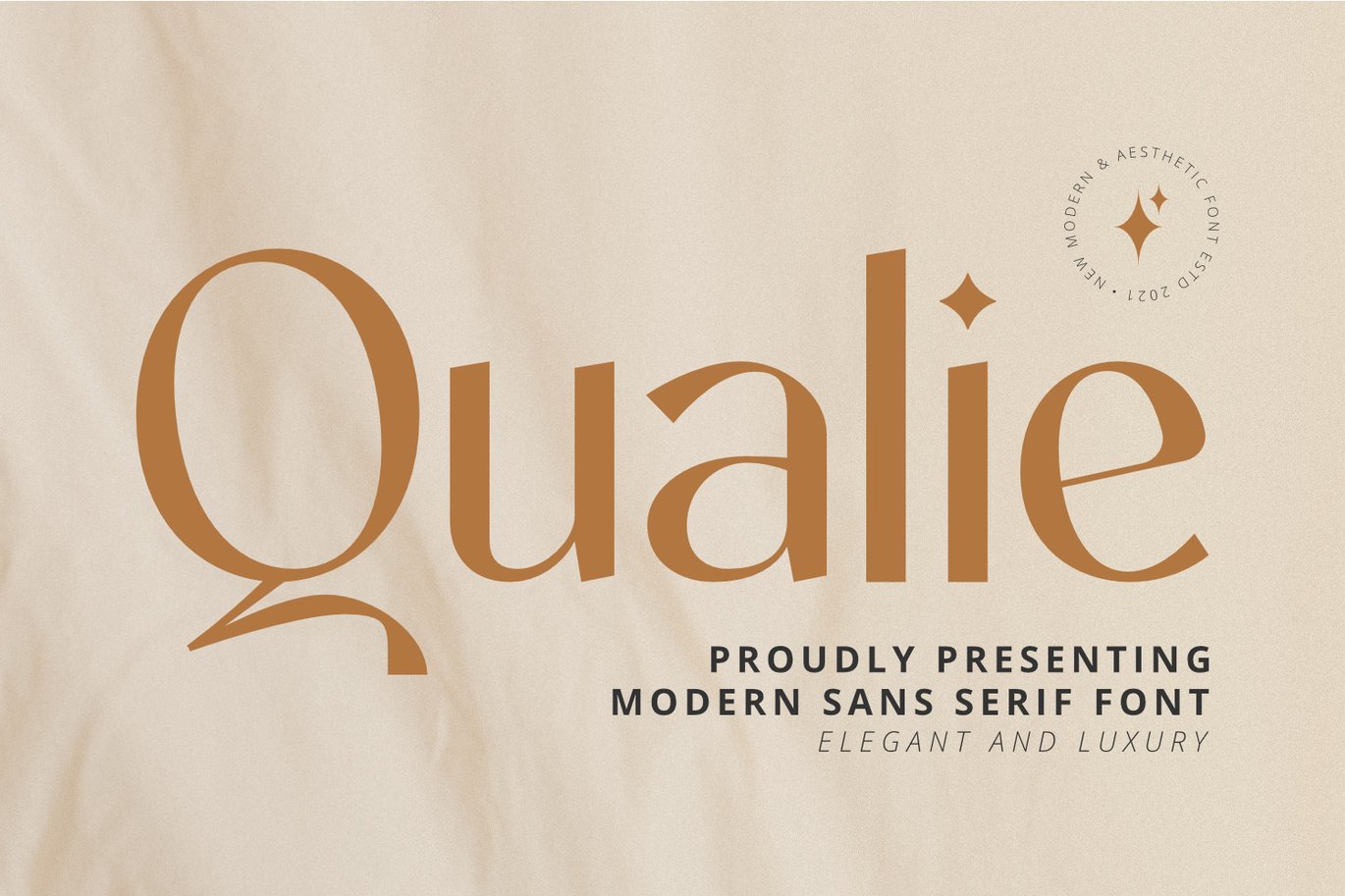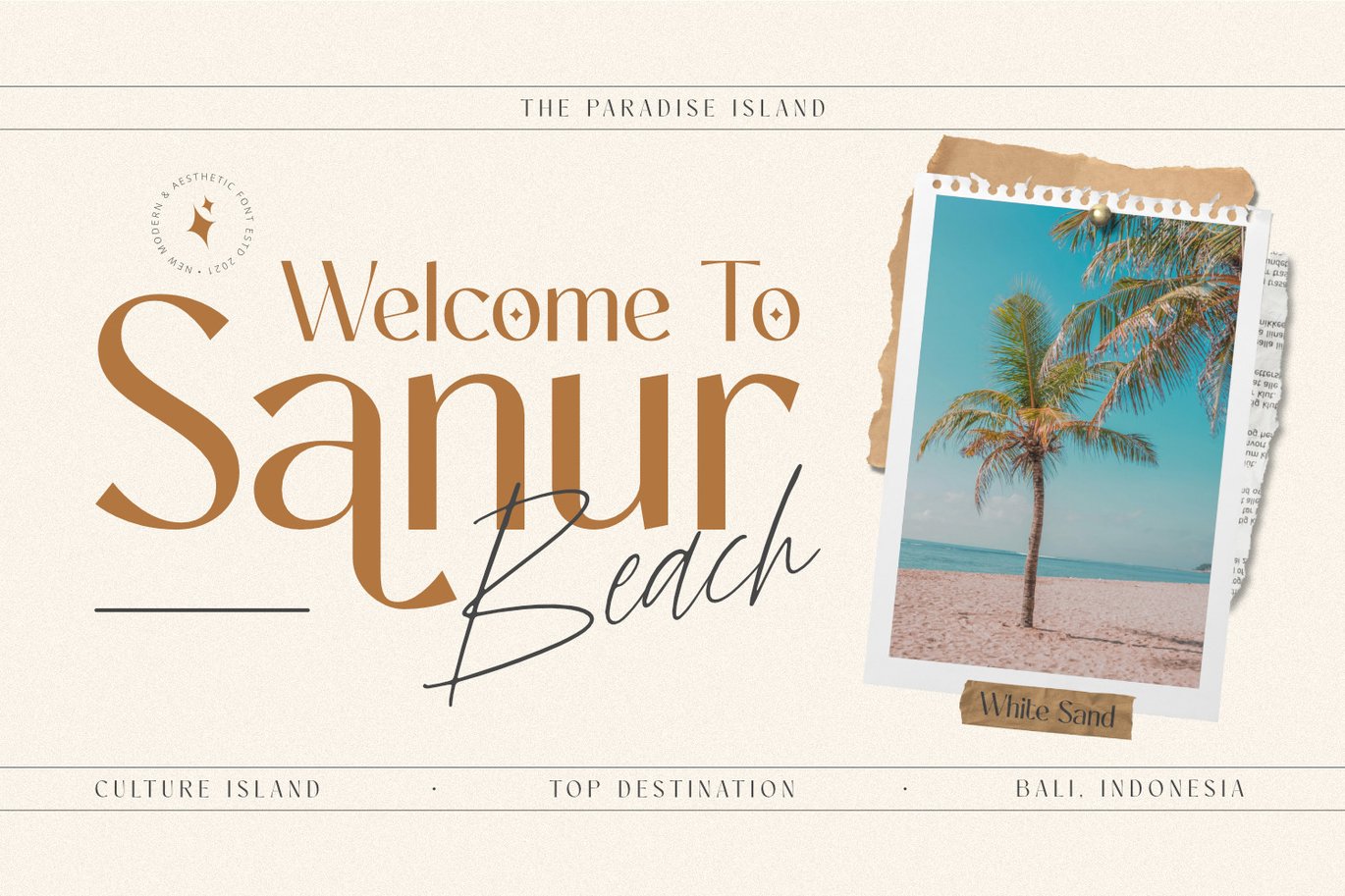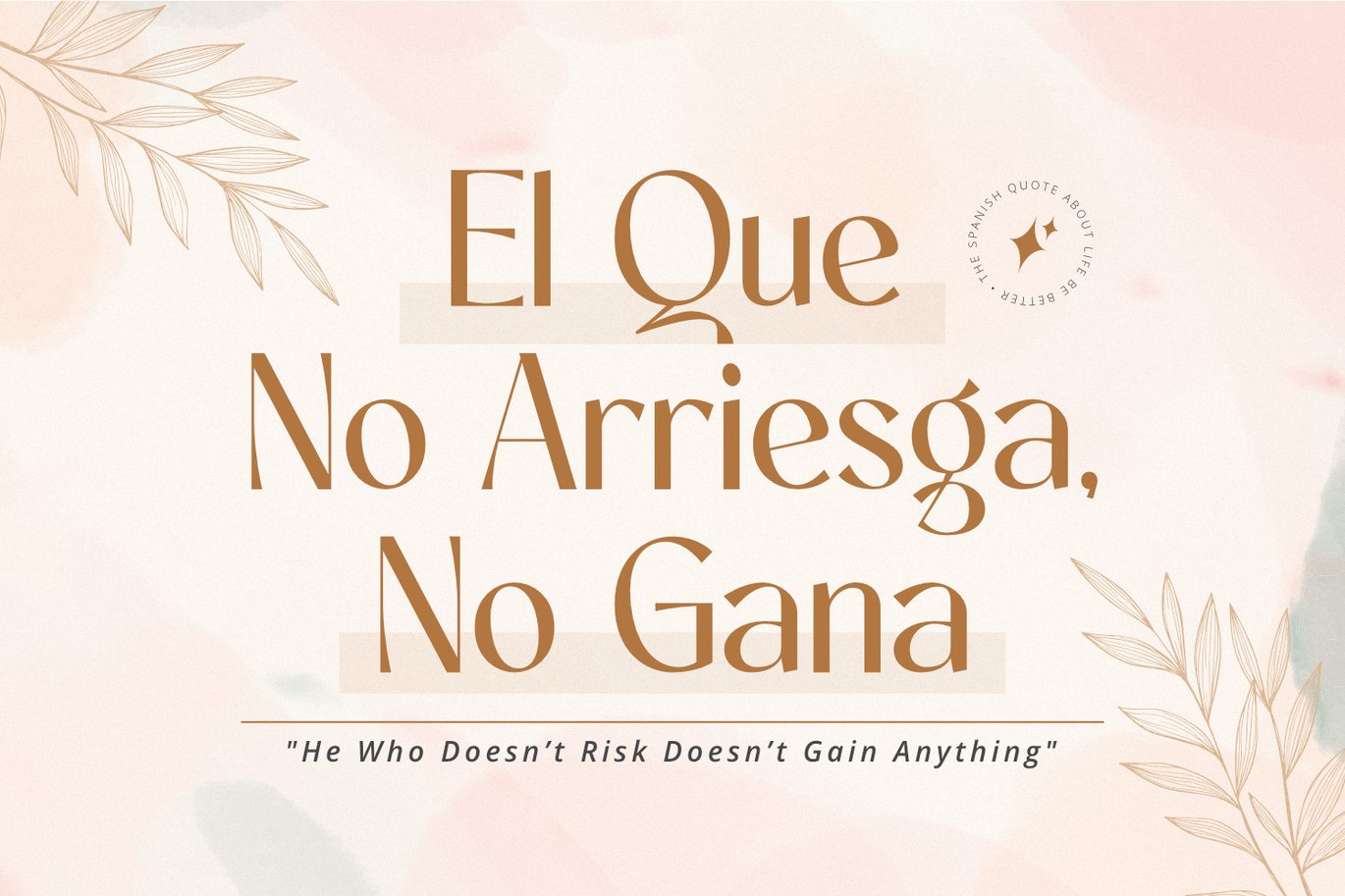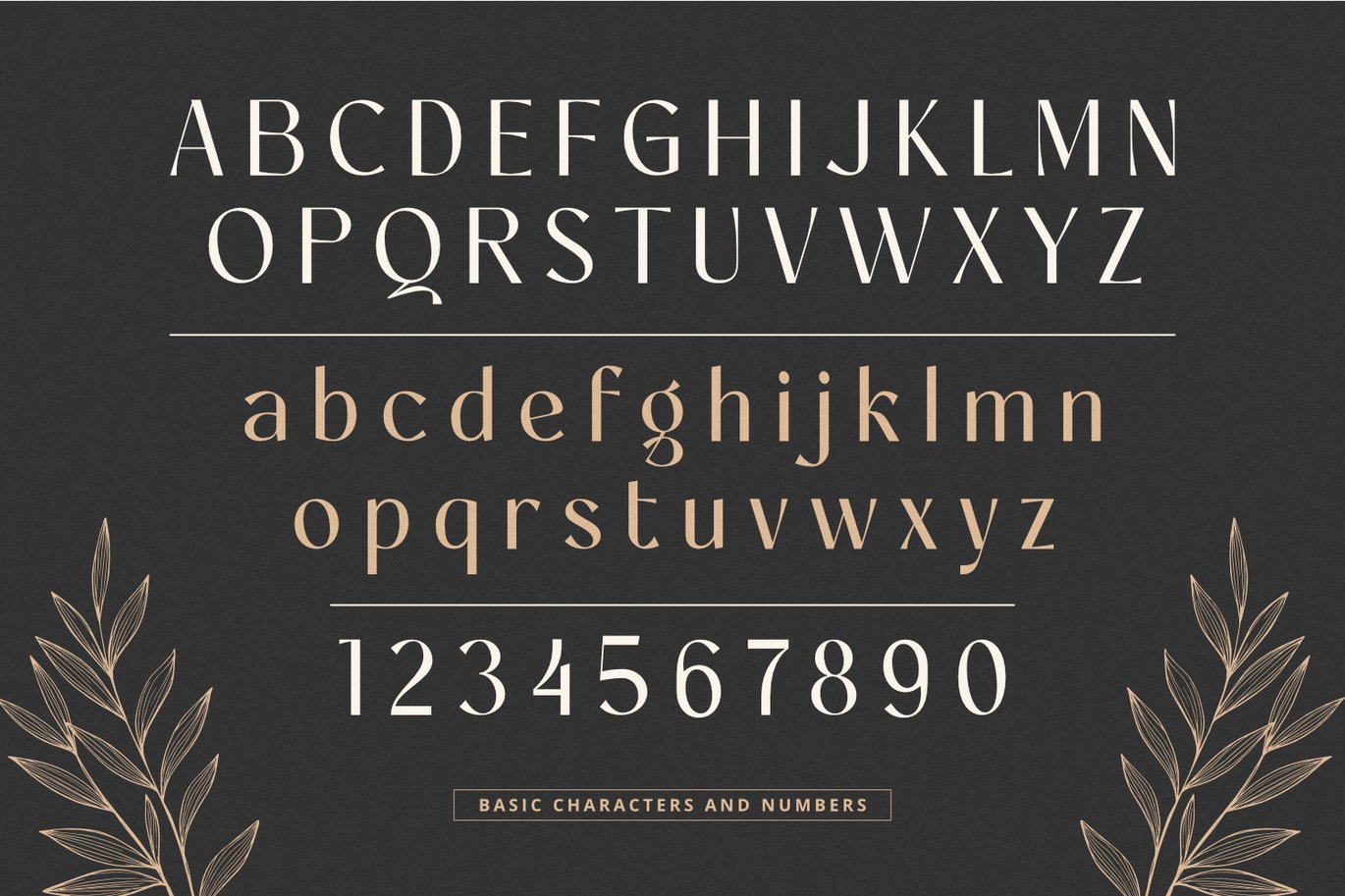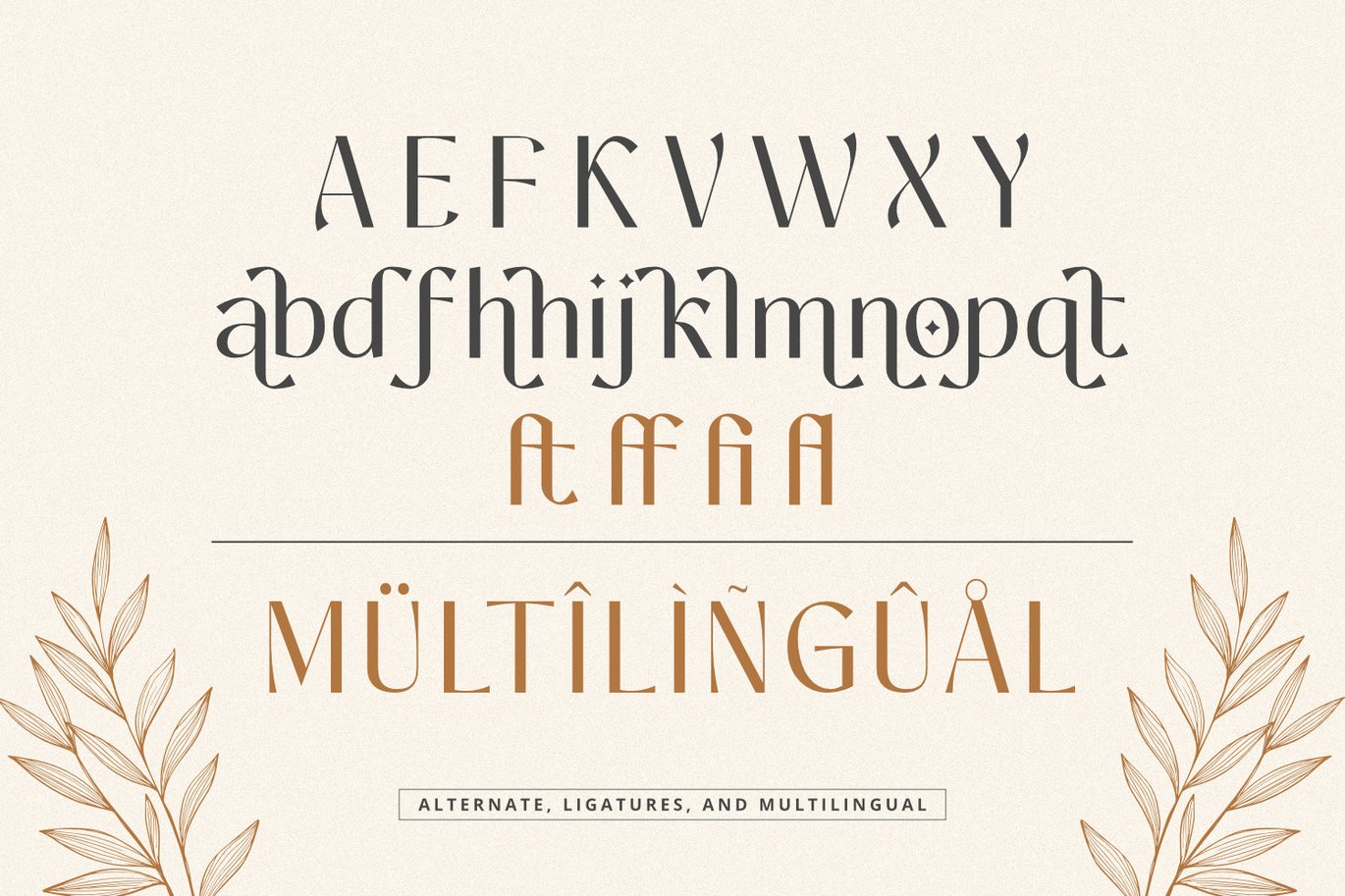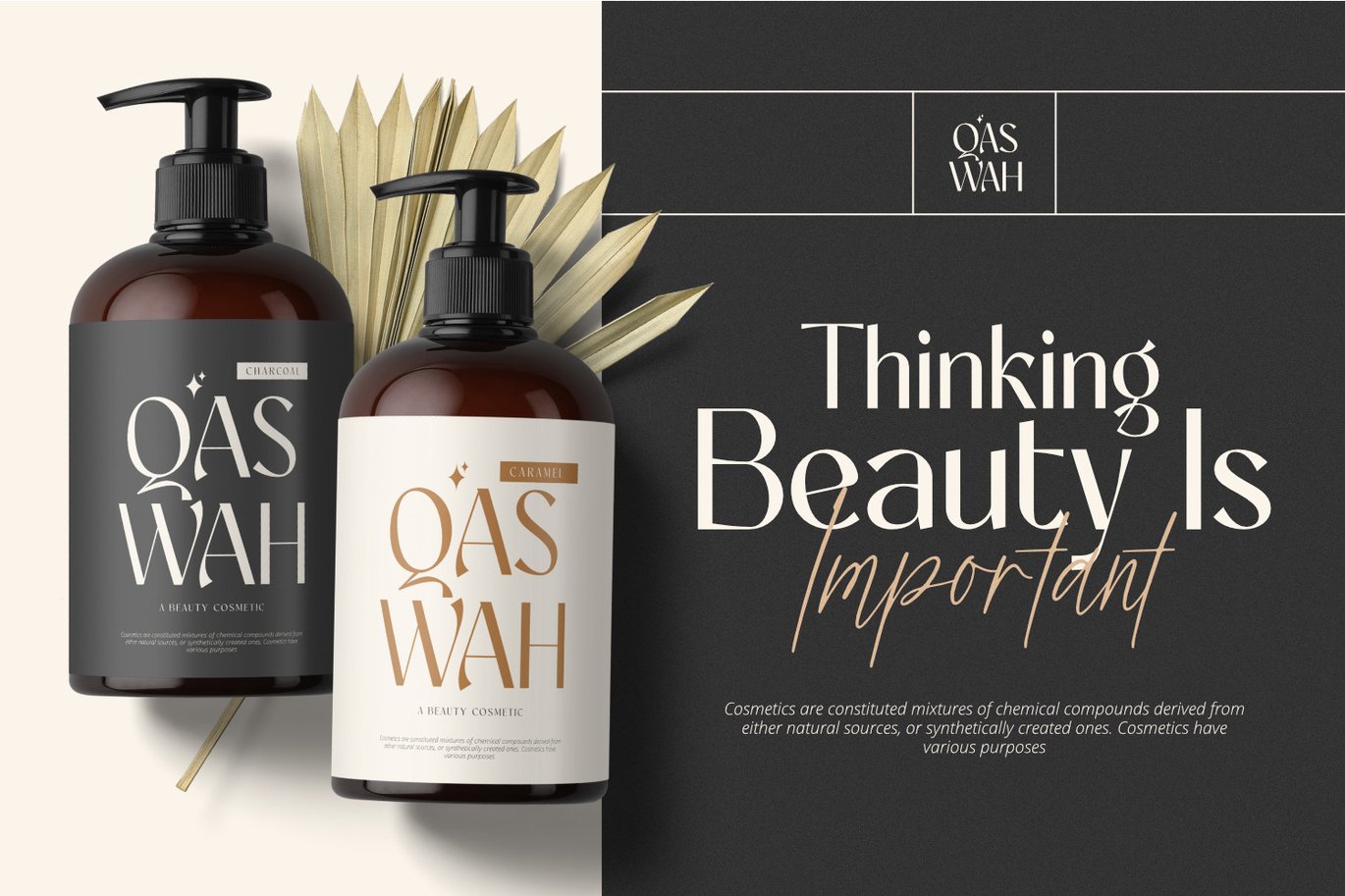
Modern Font
Qualie Font Product is perfect for many of your projects like logos & branding, photography, invitations, watermarks, advertisements, product designs, stationery, wedding designs, labels, product packaging, special events and much more.